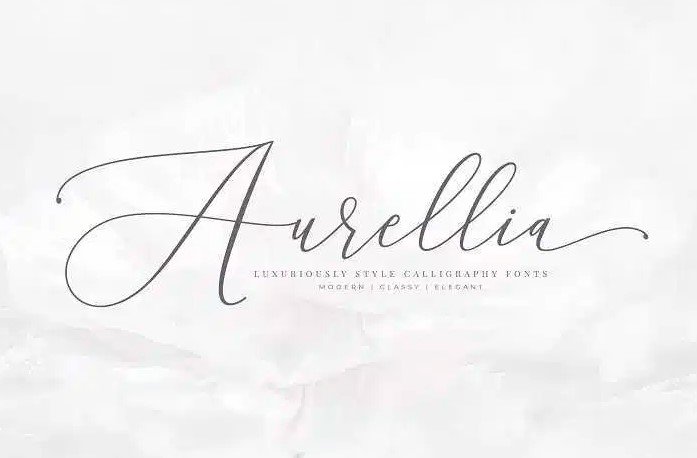
We are currently offering the outstanding Aurellia Script Font, an exquisitely handcrafted typeface featuring countless unique attributes. Created and released by AQR Typefoundry, this premium font enhances your projects with elegance, charm, and distinctiveness.
It contains awesome interesting designs and having feminine styles that designed all complex projects easily. It can also be utilized as pairing with the combination of easter font.
Here we provide an image which includes the characters and letters of this beautiful, you can perceives it by viewing on the image and get an idea how delightful it is.
As you can see that it contains a gorgeous handwritten typeface that looks perfect in all kinds of graphics as well as typographic projects. You can use it in making your designs more beautiful and attractive.